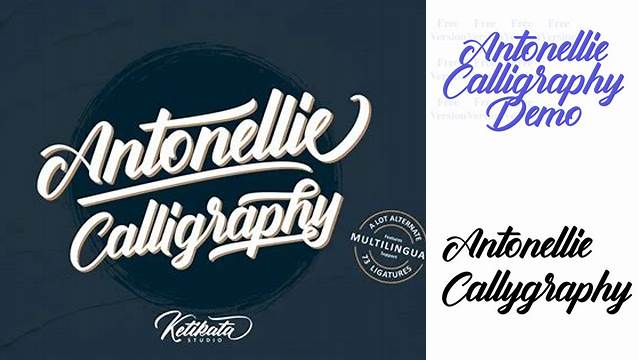
Hey guys! Are you looking to add a touch of elegance and sophistication to your projects? Look no further! We're diving deep into the world of Antonellie calligraphy font, a stunning typeface that can elevate your designs. Whether you're crafting wedding invitations, branding materials, or simply want to add a personal touch to your documents, Antonellie is a fantastic choice. Let's explore everything you need to know about this beautiful font and where you can find an antonellie calligraphy font free download.
Antonellie: A Deep Dive into its Elegance
Antonellie isn't just another font; it's a work of art. Its flowing lines and graceful curves evoke a sense of timeless beauty, making it perfect for projects that demand a touch of class. In this section, we'll take a closer look at what makes Antonellie so special and why it's a favorite among designers and creatives. When you think about typography, especially calligraphy fonts, you are trying to invoke a sense of artistry. The curves, strokes, and overall flow are all crucial in conveying the desired mood and message. Antonellie excels in this, presenting itself as a versatile option suitable for many applications. The right font can make a huge difference in how your message is received. It can add personality, create a mood, and most importantly, grab attention. With Antonellie, you're not just choosing a font; you're selecting a tool to express your creativity with flair. You may ask yourself why you should choose this font? Well, the allure of Antonellie comes not just from its aesthetic appeal, but from its ability to add a personalized touch to any project. It's about giving your words a visual voice, a way to stand out and connect with your audience on a more intimate level.
Antonellie for Personal Use: Unleash Your Creativity
For personal projects, Antonellie can be a game-changer. From crafting heartfelt greeting cards to designing personalized journals, the possibilities are endless. We'll dive into how you can use Antonellie to add a special touch to your everyday creations. Think about how much a handwritten note can mean to someone. It’s that personal touch that makes it special. Now, imagine capturing that same warmth and individuality in your digital projects. That’s the power of using Antonellie for personal use. You can create invitations that look like they were painstakingly handwritten, design thank-you notes that exude sincerity, or even craft personalized labels that add a touch of elegance to your homemade gifts. The beauty of using a calligraphy font like Antonellie is that it instantly elevates your work, making it feel more intentional and heartfelt. It's a way to infuse your personality into your creations, setting them apart from the mundane and mass-produced. If you’ve ever wanted to try your hand at calligraphy but were intimidated by the learning curve, Antonellie offers a fantastic solution. You get the beauty of hand-lettering without the need for years of practice. So, go ahead and unleash your creativity! Explore the endless possibilities that Antonellie brings to your personal projects and watch your ideas come to life with a touch of sophistication.
Antonellie for Commercial Use: Elevate Your Brand
If you're a business owner or entrepreneur, Antonellie can be a valuable asset for your branding efforts. We'll explore how you can use this font to create a sophisticated and memorable brand identity. A calligraphy font can instantly communicate quality, care, and a personal touch. It’s an excellent way to set yourself apart in a crowded marketplace. When you use Antonellie in your logo, website, or marketing materials, you're not just choosing a font; you're choosing to communicate a message of elegance and attention to detail. Think about luxury brands – they often use calligraphy or script fonts to convey their high-end status. Antonellie can help you achieve a similar effect, making your brand appear more refined and trustworthy. But it's not just about aesthetics. Using a consistent font across your branding materials also helps create a cohesive and recognizable brand identity. When customers see Antonellie, they'll start to associate it with your brand, building familiarity and trust. It's a subtle but powerful way to strengthen your brand's presence and make a lasting impression. Whether you're designing a logo, creating business cards, or crafting social media graphics, Antonellie can help you elevate your brand's image and attract your target audience. So, if you're looking for a way to give your business a touch of sophistication, consider the power of Antonellie.
Pairing Antonellie: Complementary Fonts
Antonellie is stunning on its own, but pairing it with the right fonts can create even more impactful designs. We'll explore some fonts that complement Antonellie's style and how to use them effectively. Pairing fonts is an art in itself. The goal is to find fonts that work together harmoniously, creating a visual balance and enhancing the overall message. Think of it like a well-coordinated outfit – the individual pieces might be great on their own, but they look even better when they complement each other. When pairing Antonellie, you want to choose fonts that don't compete with its elegance but rather enhance it. Because Antonellie is a calligraphy font, it’s often best paired with simpler, cleaner fonts. This creates a contrast that allows Antonellie to shine without overwhelming the design. For example, a sans-serif font like Helvetica or Arial can provide a clean and modern counterpoint to Antonellie’s flowing lines. You could use Antonellie for headings or titles and then use the sans-serif font for body text. Another great option is to pair Antonellie with a serif font that has a more classic and understated feel, such as Garamond or Times New Roman. This can create a sophisticated and timeless look. The key is to experiment and see what works best for your specific project. Consider the overall tone and message you want to convey, and then choose fonts that help you achieve that. With the right font pairing, you can make Antonellie even more impactful and create designs that truly stand out.
Antonellie in Graphic Design: Best Practices